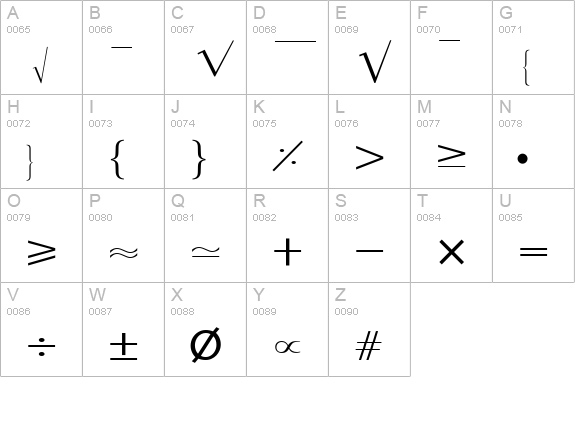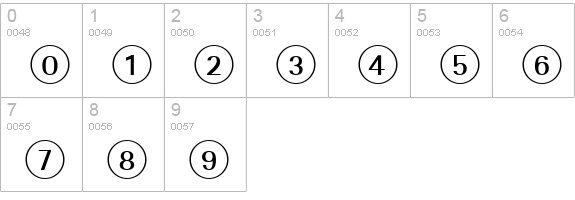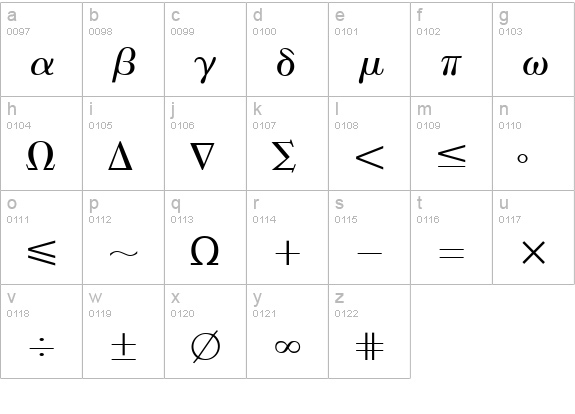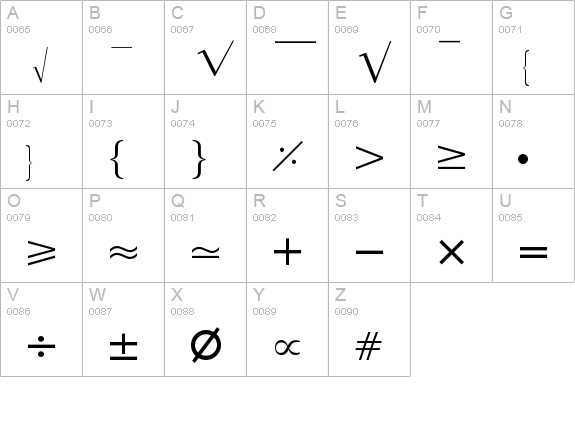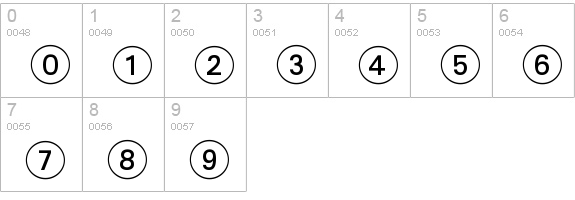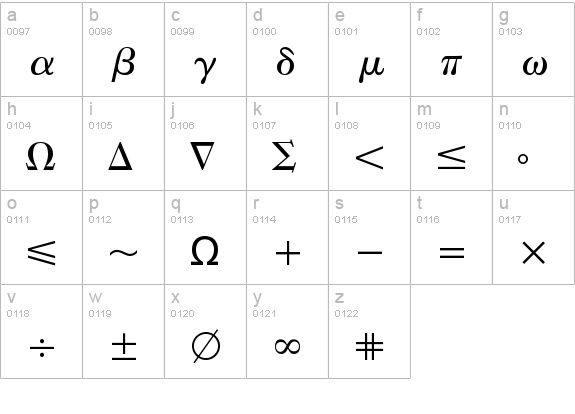
Abacus Four SSi Font Details
The Abacus Four SSi font is a versatile and stylish typeface that combines modern design elements with a classic feel. With its clean lines and elegant curves, this font is perfect for a wide range of design projects, from branding to editorial layouts. The Abacus Four SSi font is free to download at FontsMarket.com, making it accessible to designers and creatives looking to add a touch of sophistication to their work. Whether you're working on a logo, website, or print materials, this font will elevate your design and leave a lasting impression on your audience. Download the Abacus Four SSi font today and start creating beautiful and professional-looking designs with ease.